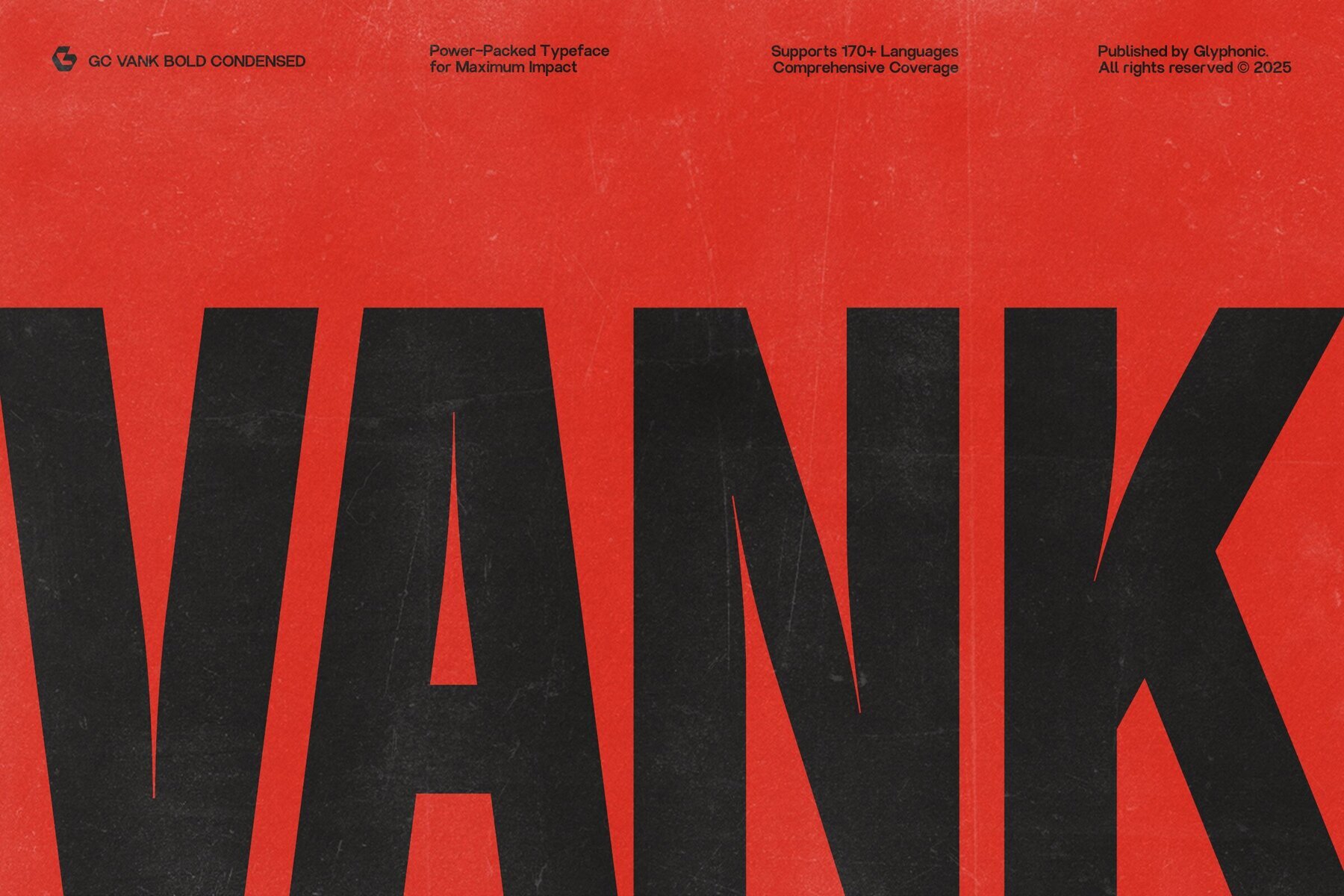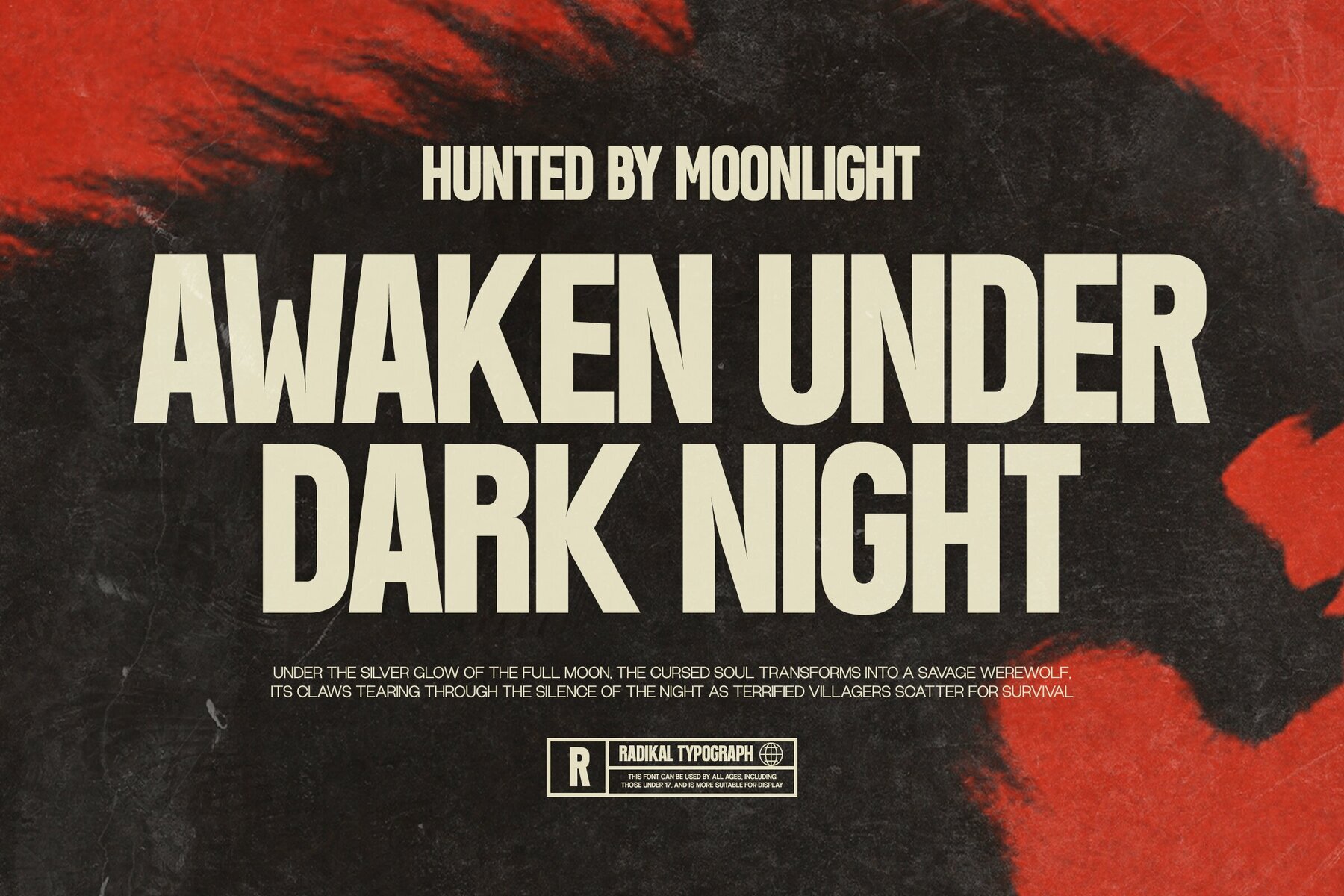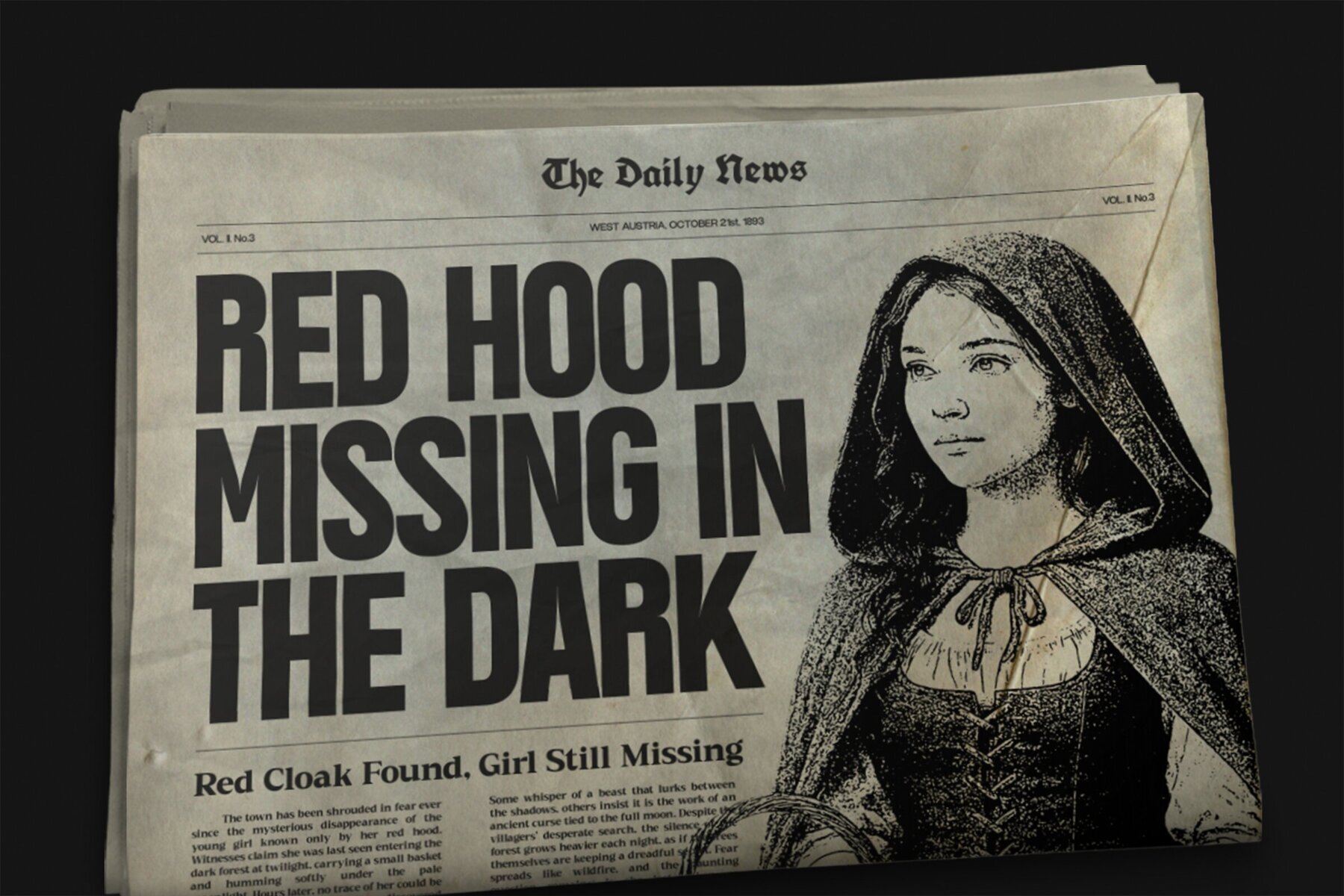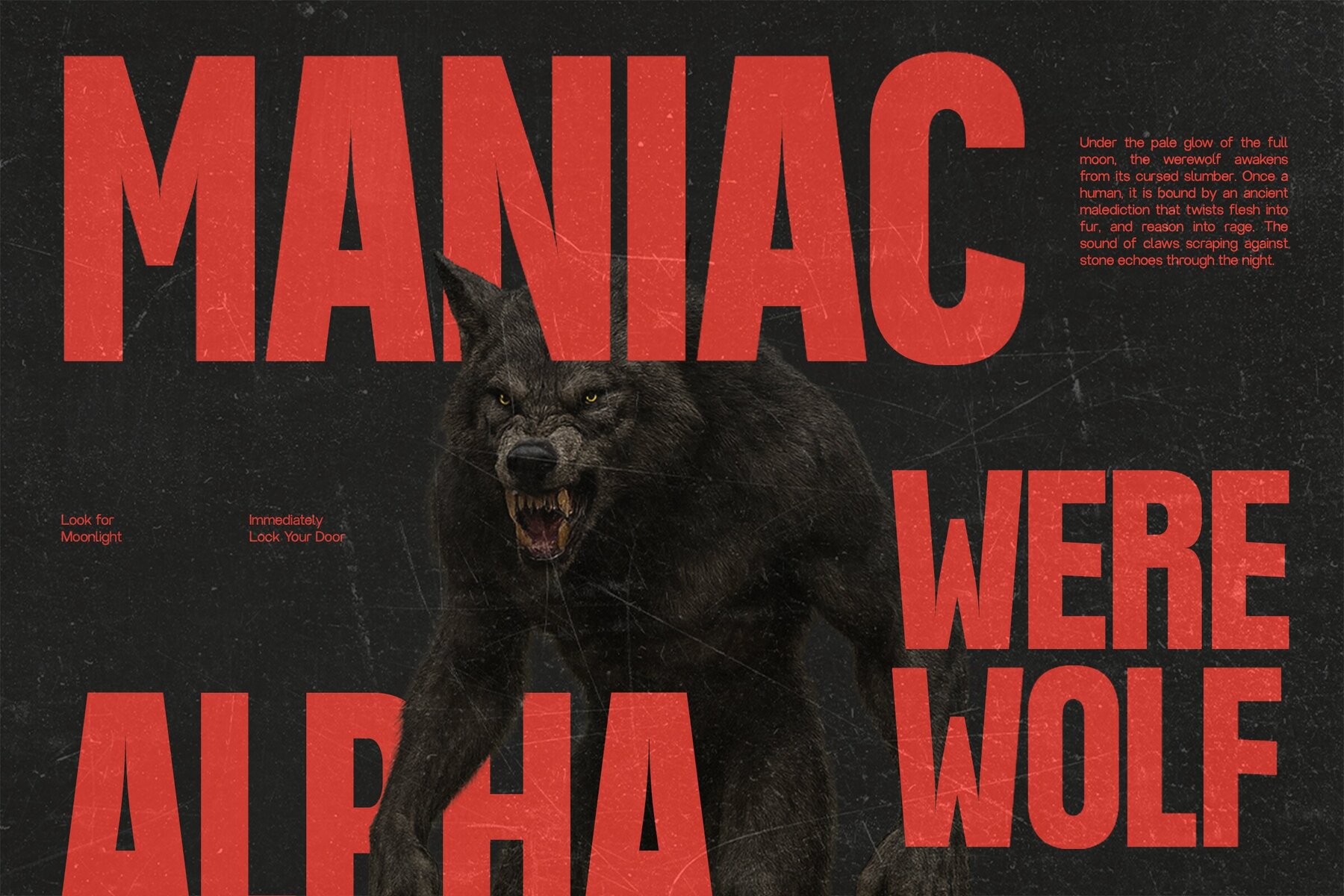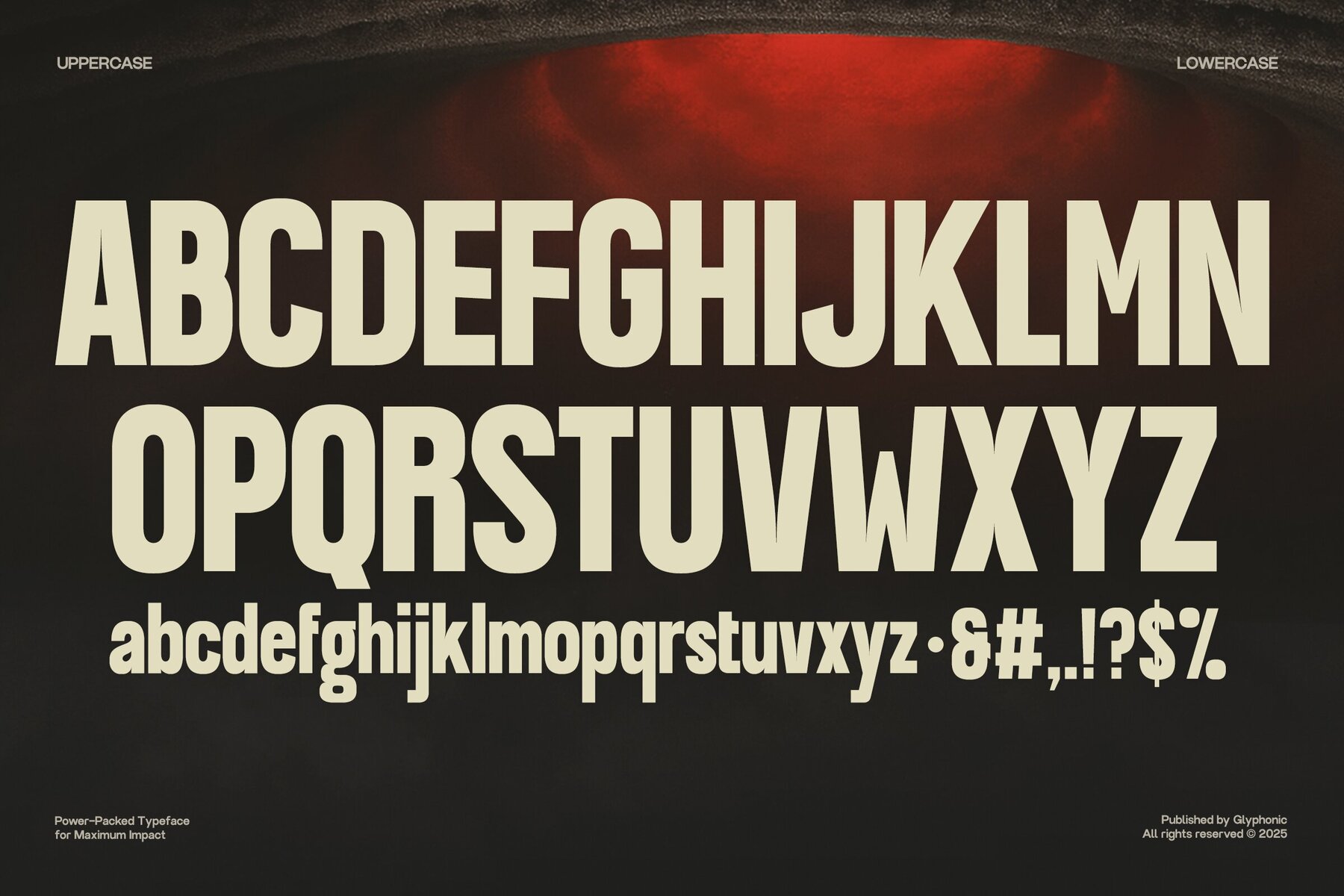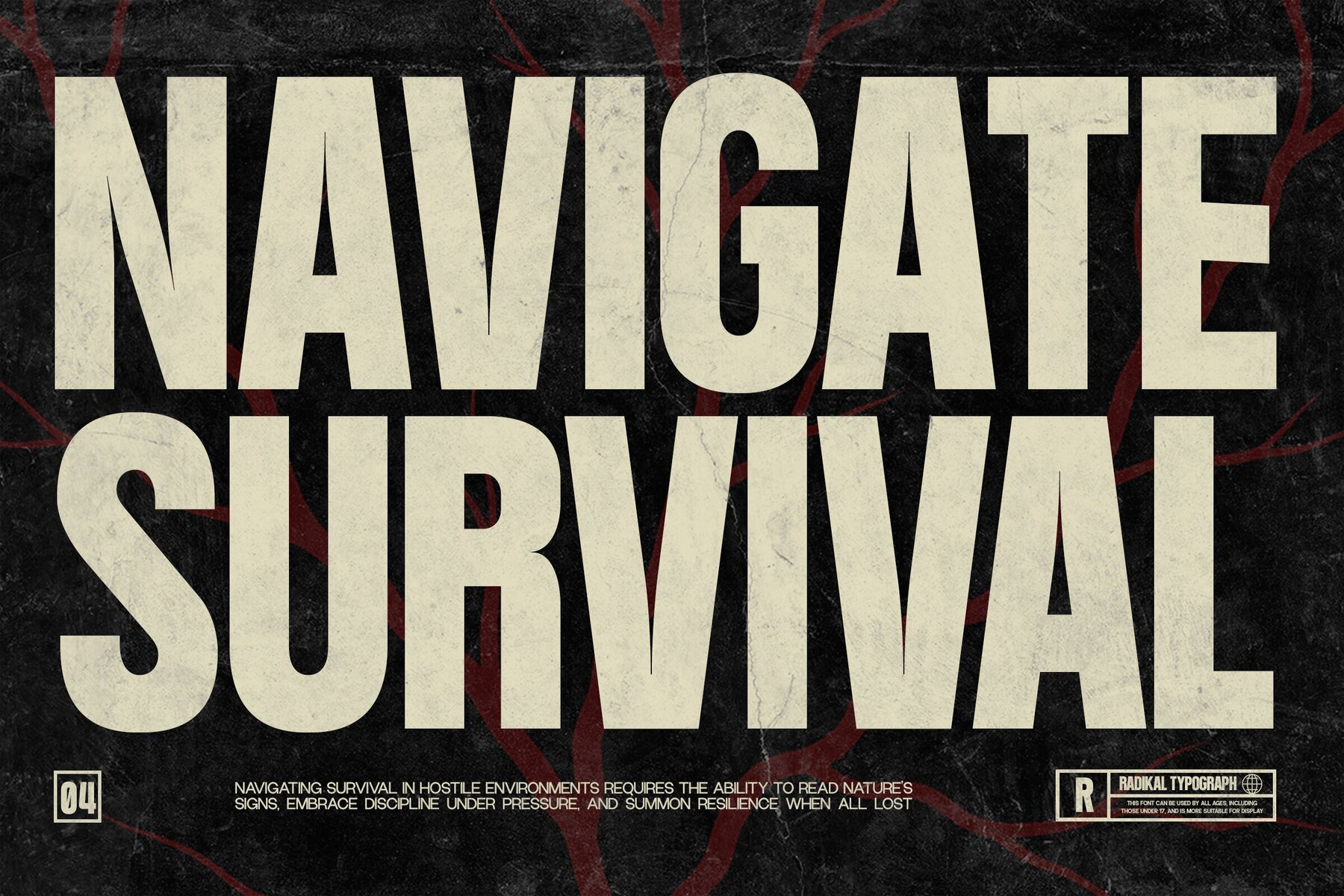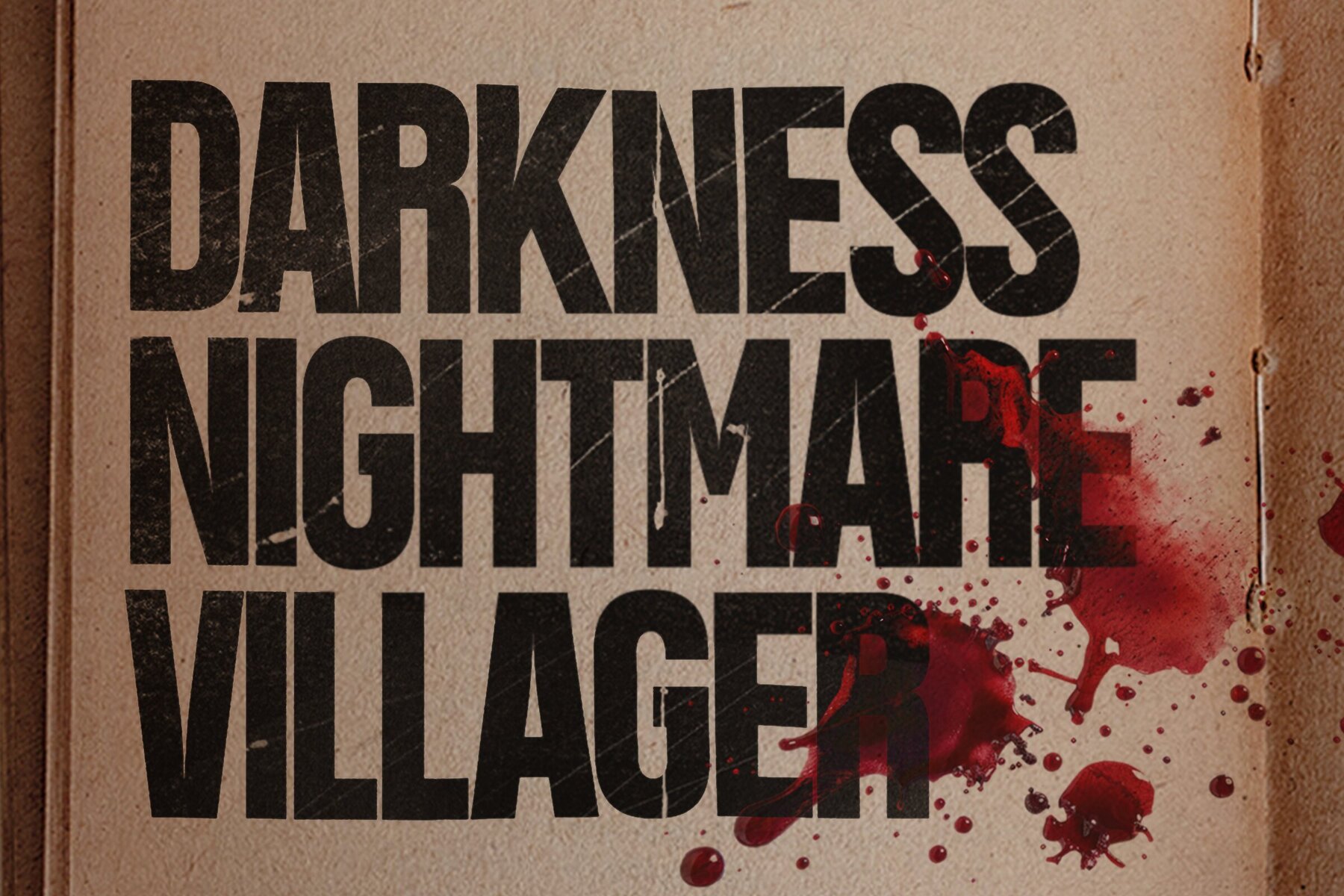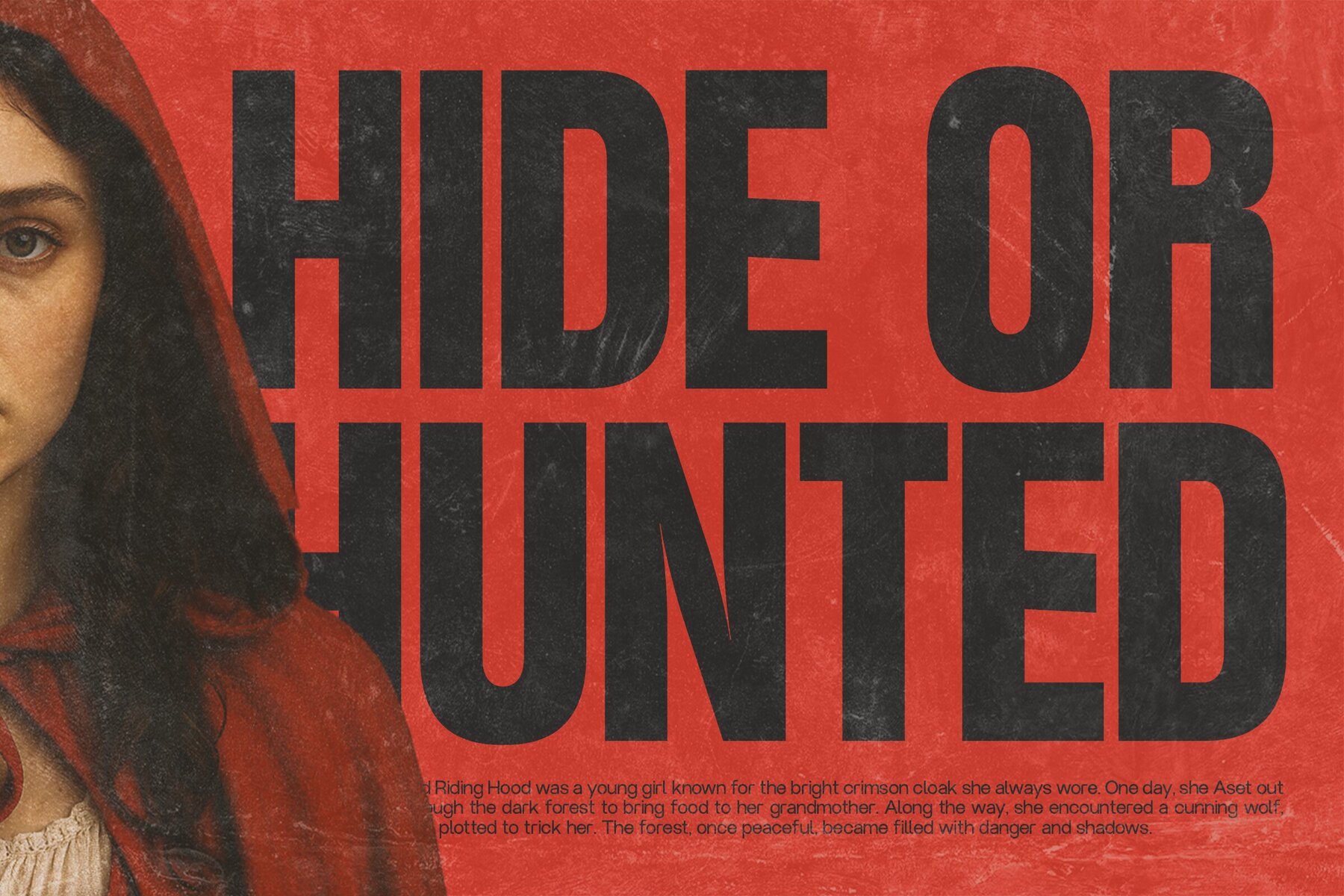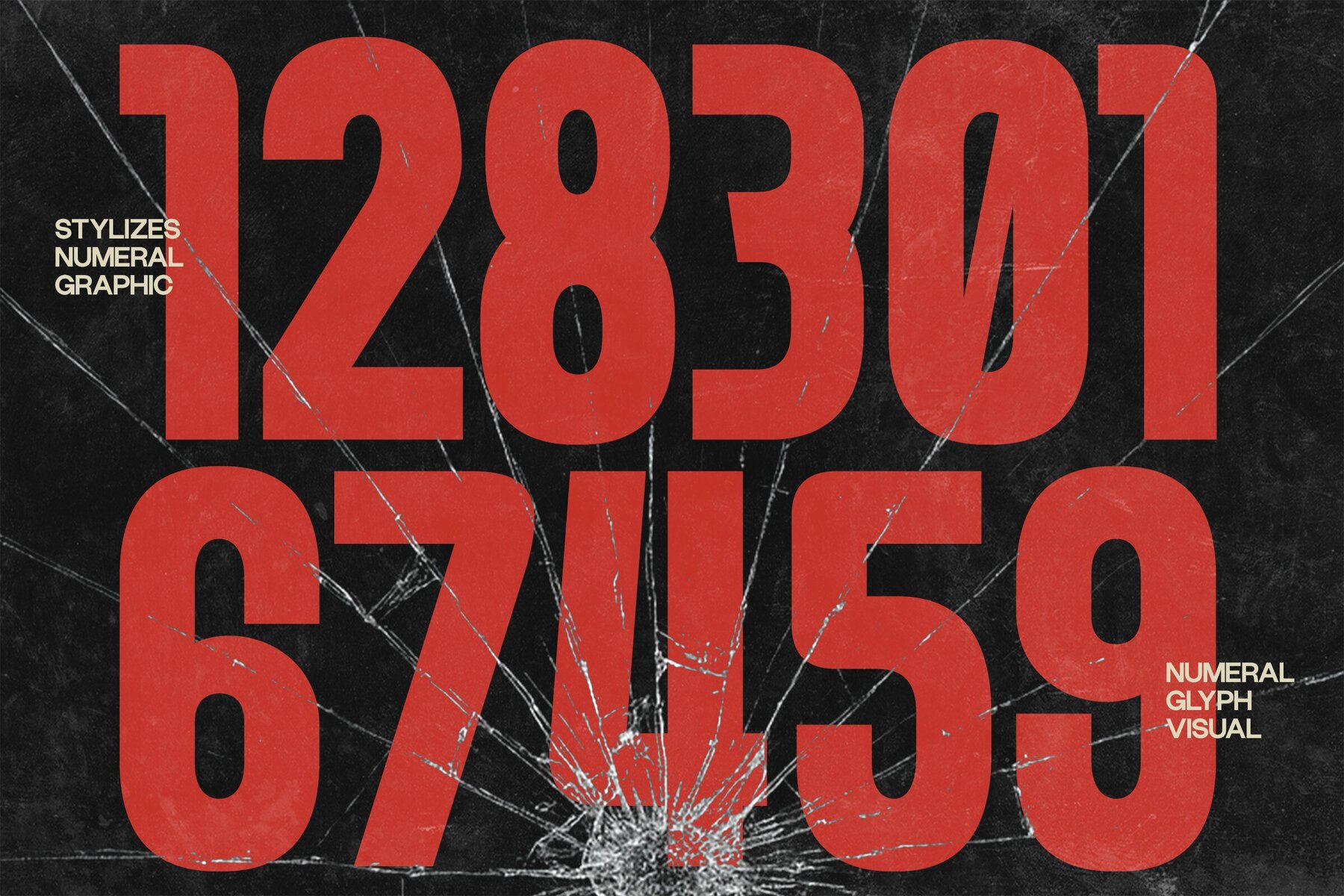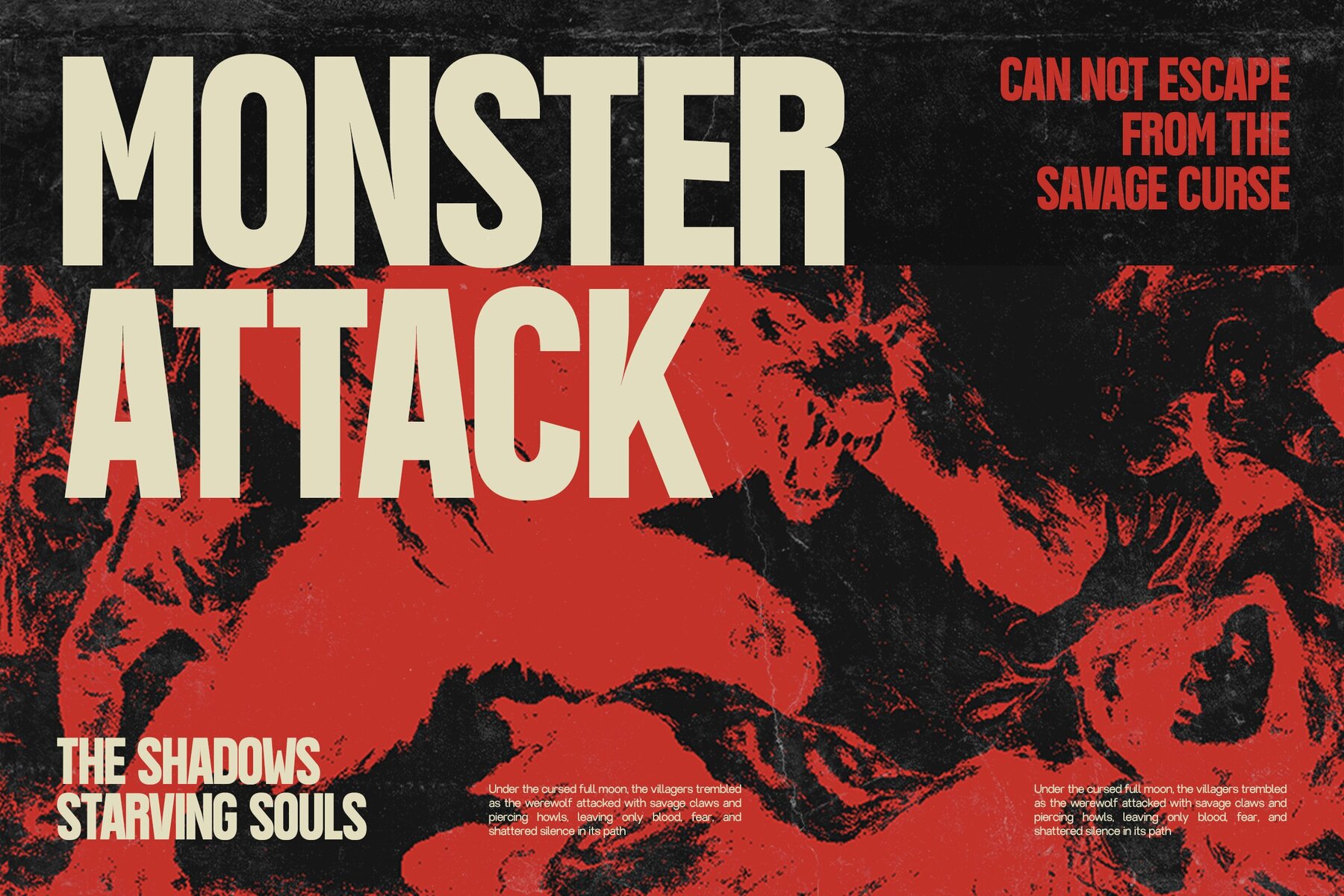
GC Vank Font
GC VANK Regular
GC Vank offers a powerful presence with its condensed sans serif style, designed for modern versatility and impact. The font features a strong weight and clean structure, delivering striking typography suitable for both digital and print media. Whether used for branding, posters, packaging, or sports graphics, its confident presence and stylistic strength shine through, making it an ideal choice for impactful headlines. With balanced proportions and precise detailing, GC Vank maintains an adaptable yet distinctive character. It excels in crafting bold titles, sleek interfaces, and dynamic layouts, infusing your designs with power, clarity, and a modern energy. Features: GC Vank delivers bold strength and modern confidence, elevating your typographic projects with its distinct style.GC Vank: A Bold Condensed Sans Serif